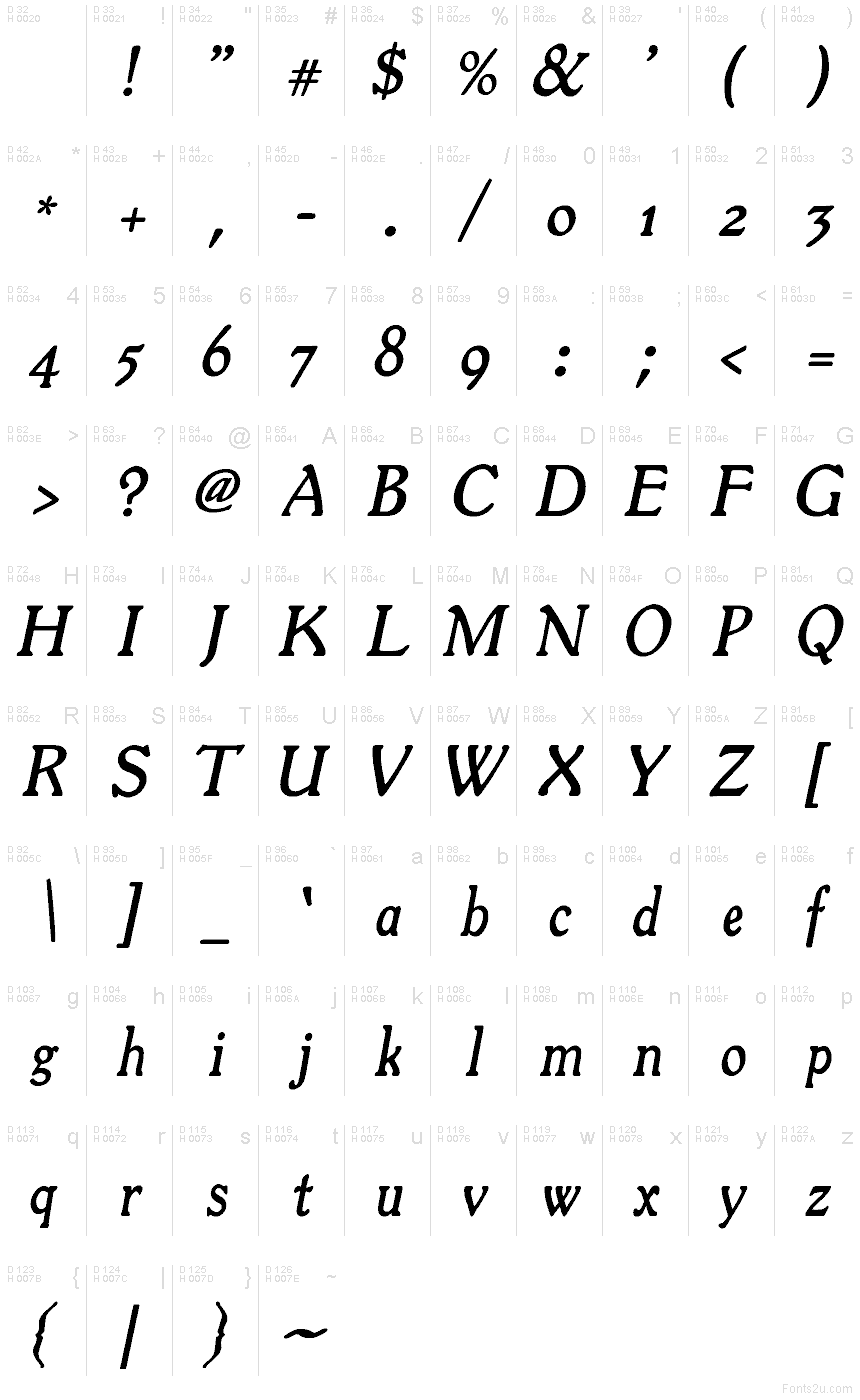
LDR Studia Italic Italic
LDR Studia Italic font by Luigi Della Rosa is a free italic serif typeface that solves a familiar gap: you want warmth and motion without losing clarity. Its inky curves lean forward with confidence, while firm, chiseled strokes keep words crisp instead of slippery. Part of the LDR Studia family, it carries a scholarly tone with a hand-drawn lilt—elegant, but never fussy.
Using LDR Studia Italic, headlines and short paragraphs take on a conversational glide that reads smoothly at mid sizes. It shines on book covers, literary magazines, boutique branding, wine labels, menus, and poetry posters. This free font also works beautifully for pull quotes and refined social graphics. Pair with a clean grotesque sans to steady the rhythm, and set a little looser tracking for air.